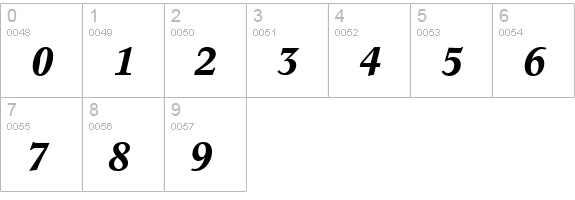
C790-Roman-BoldItalic Font Details
C790 Roman Bold Italic font is a striking and versatile typeface that exudes elegance and sophistication. Its bold and italic design adds a touch of flair to any project, making it ideal for both headings and body text. This font is perfect for creating eye-catching designs that demand attention. What sets C790 Roman Bold Italic font apart is its seamless blend of classic Roman letterforms with a modern twist. The bold strokes and subtle curves give this font a unique personality that is both timeless and contemporary. Best of all, C790 Roman Bold Italic font is available for free download at FontsMarket.com. Whether you are a designer looking to elevate your projects or a student working on a presentation, this font is a must-have addition to your collection. Download it today and unleash your creativity with this stunning typeface.